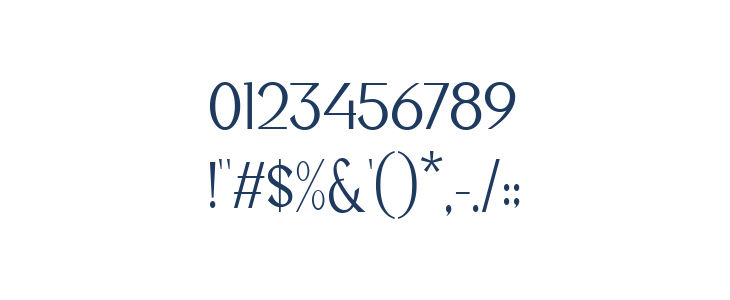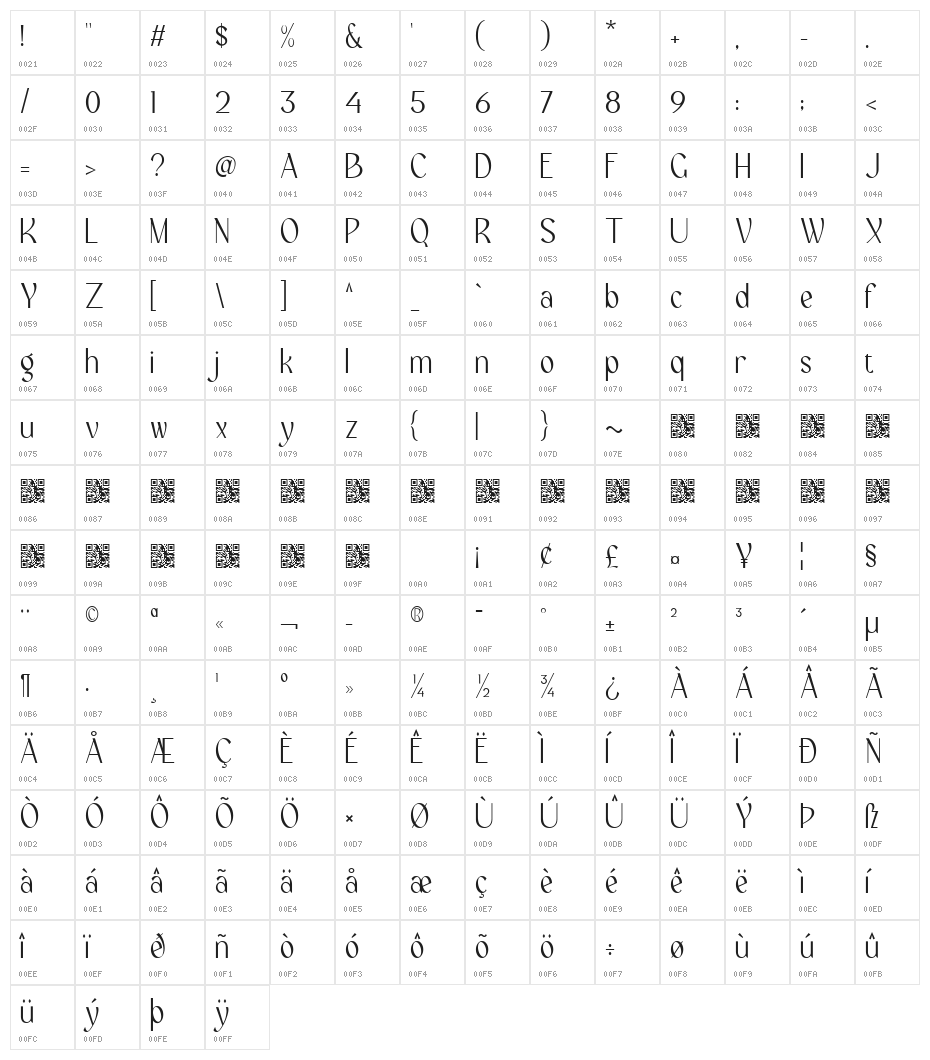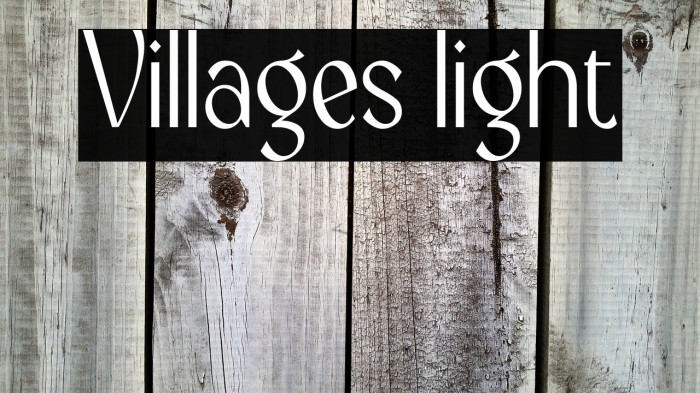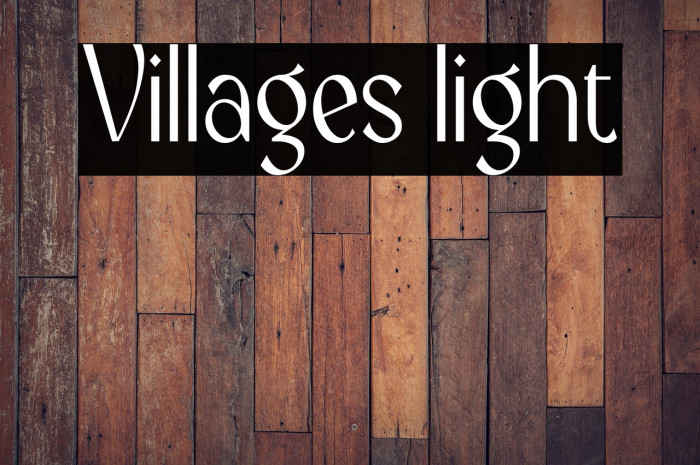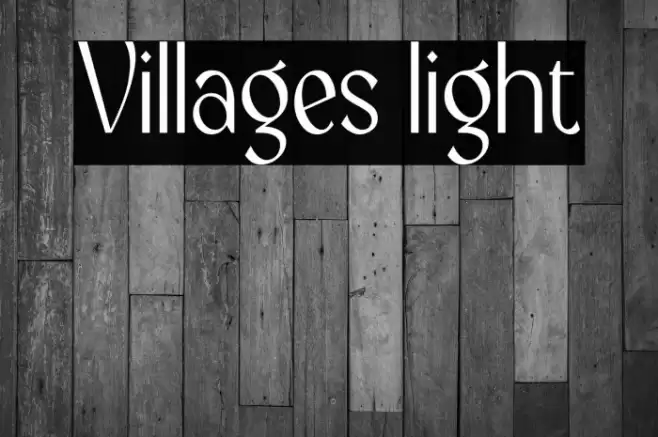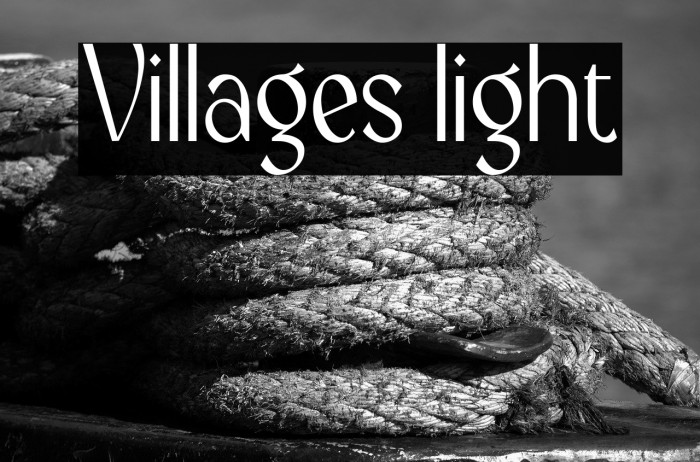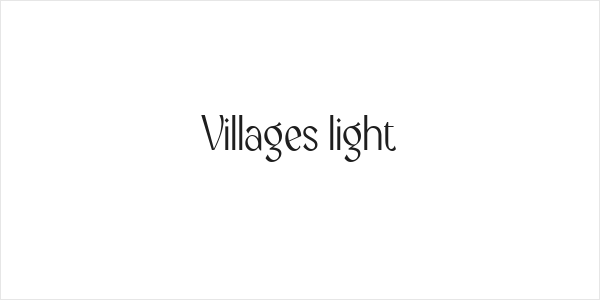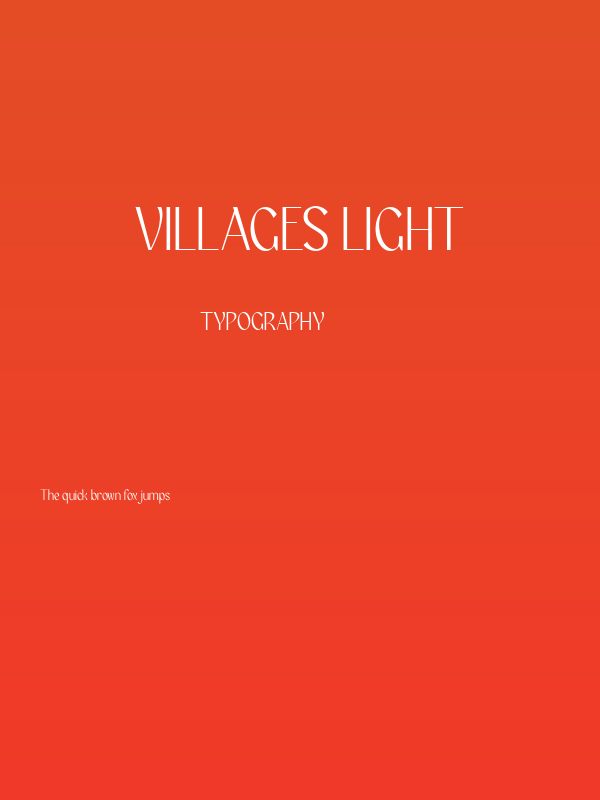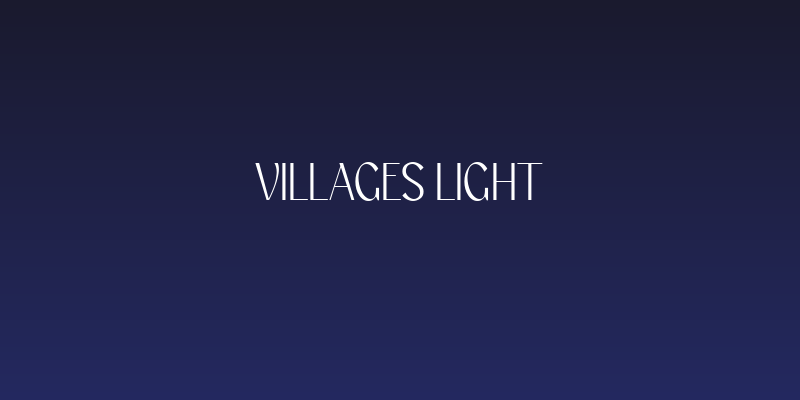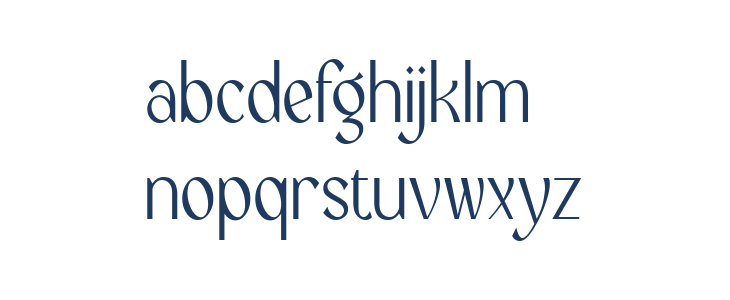
Villages light Font
Villages light Description
This font features a modern and elegant design with clean lines and a refined appearance. The uppercase letters are tall and slender, while the lowercase letters maintain a consistent height, creating a harmonious balance. The numerals are distinct and easy to read, complementing the overall aesthetic. Special characters are thoughtfully designed to match the font's sleek style. The font's light weight adds to its sophisticated and airy feel, making it suitable for a variety of design applications.
| Proposed Projects | Ideal for branding, editorial design, invitations, and minimalist web design. |